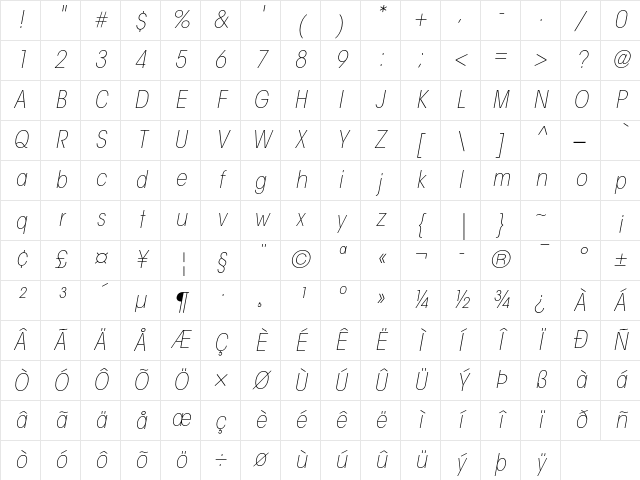
ITC Avant Garde Gothic Std Extra Light Condensed Oblique
Style: Extra Light Condensed Oblique
Designer: Herb Lubalin, Tom Carnase, Ed Benguiat, Adobe Type Staff
Complete ITC Avant Garde Gothic Std Extra Light Condensed Oblique glyph index. Displaying only characters natively supported by ITC Avant Garde Gothic Std Extra Light Condensed Oblique font.
Design Context for ITC Avant Garde Gothic Std
ITC Avant Garde Gothic Std takes a clean, functional approach - its unadorned letterforms prioritise legibility and work reliably across screen and print environments. The slanted form adds forward momentum and visual energy. Its slender proportions lend an understated elegance to any composition. Its narrow stance lets it pack a punch even in space-constrained designs.
Font Pairing: Pair ITC Avant Garde Gothic Std with a medium or bold serif for headlines - the weight contrast creates an elegant, high-end feel.
Pro Tip: Use ITC Avant Garde Gothic Std tightly set in headlines and banners - its condensed proportions make it ideal for maximum impact in minimum horizontal space.